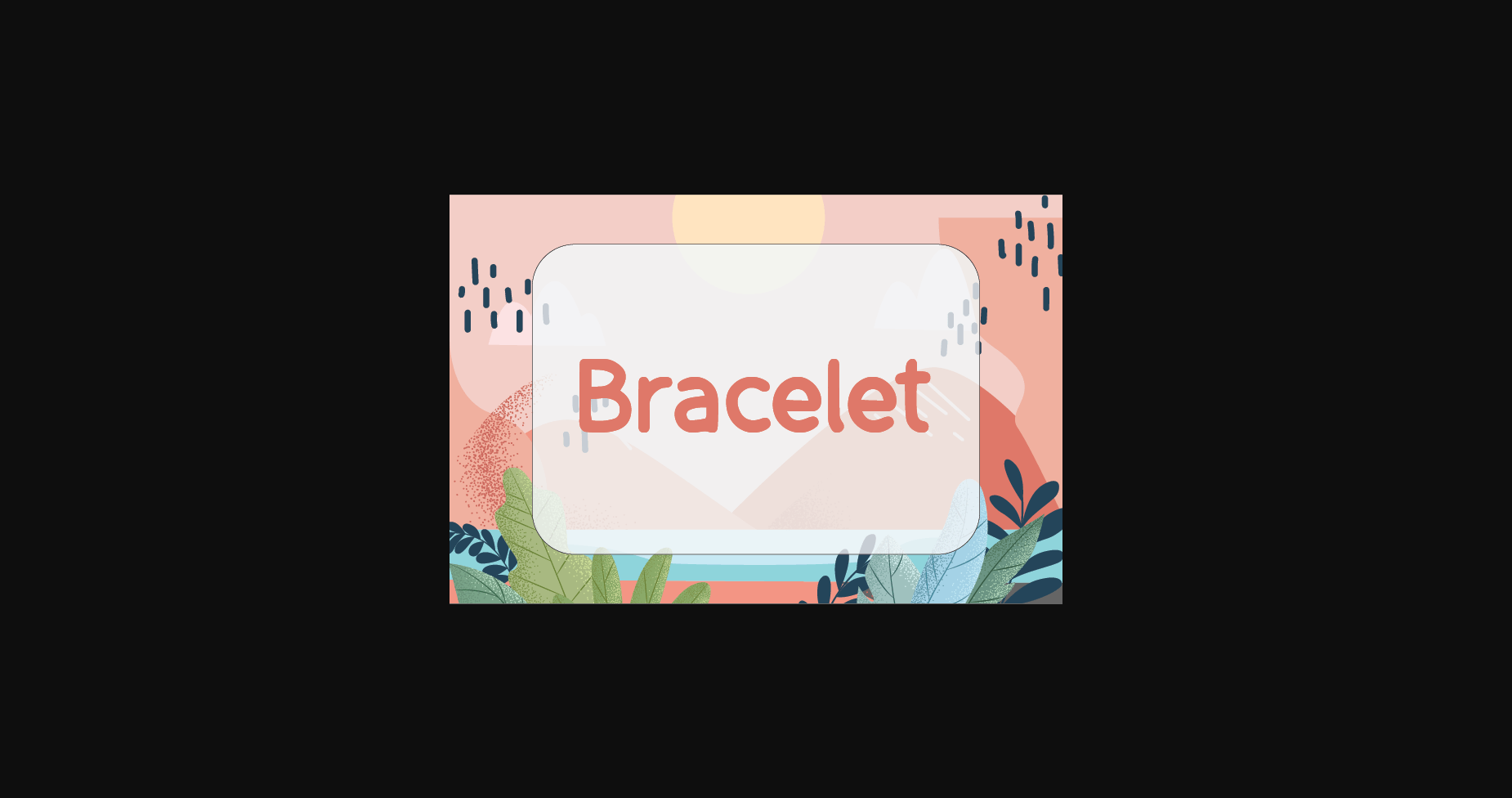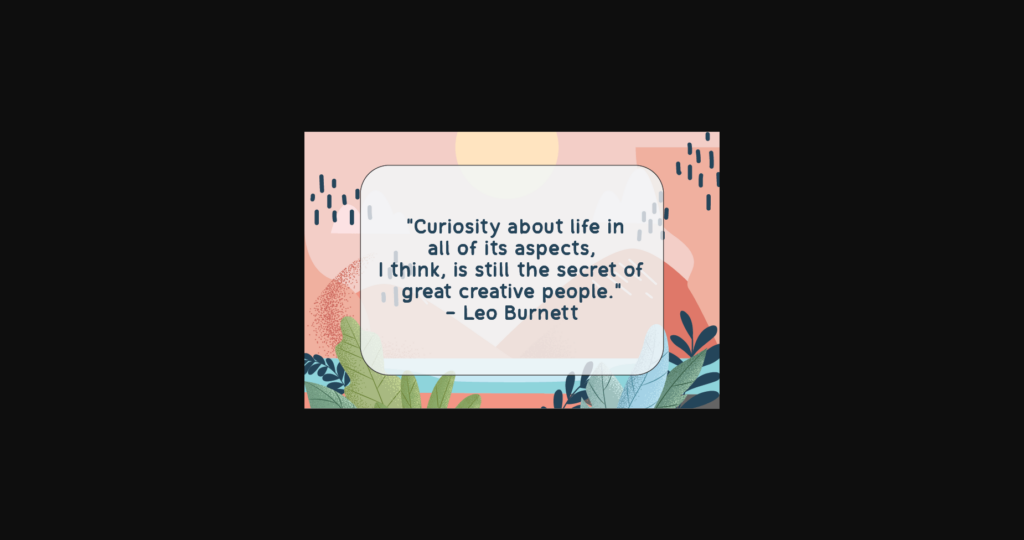
About Bracelet Font
Bracelet is a natural sans serif font made without changing a single node in each character’s indentation- this makes this font very interesting and unique. Perfect for quotes, notes, tees, and any product design.